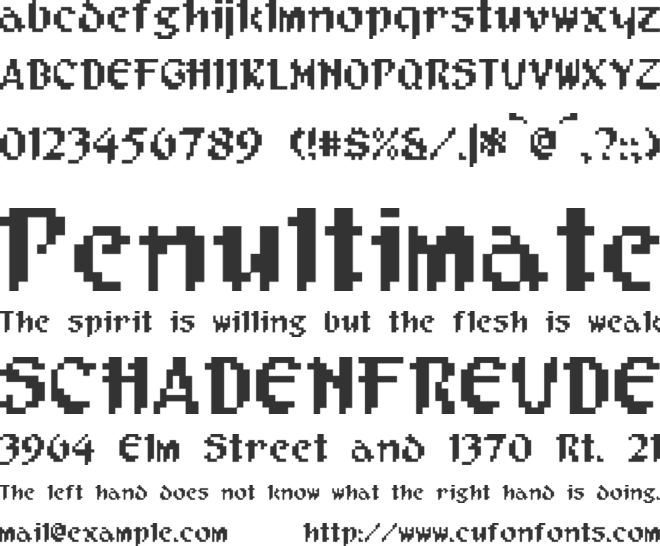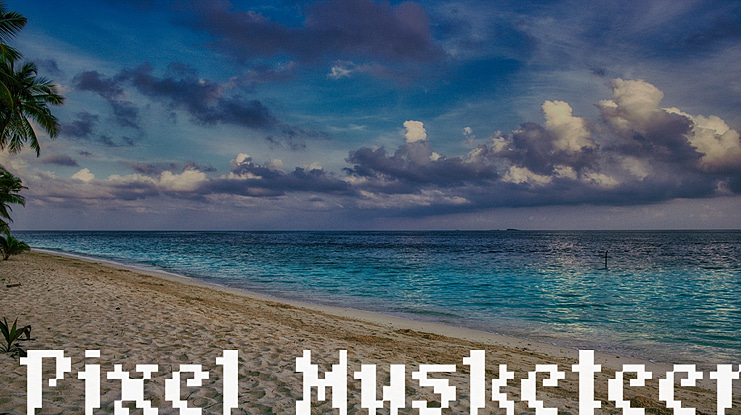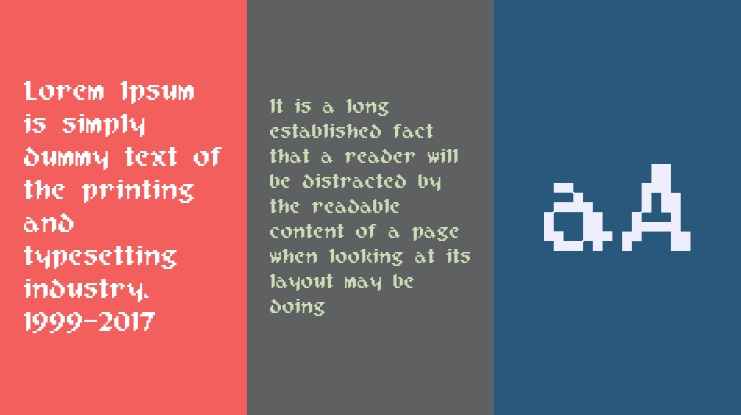
Pixel Musketeer Font
This is a 'pixelated' fantasy typeface based on the in-game writing from Sony's legendary Wild Arms and Wild Arms 2 games for the Playstation. Includes full alphabet, punctuation, extended character set, and Euro.